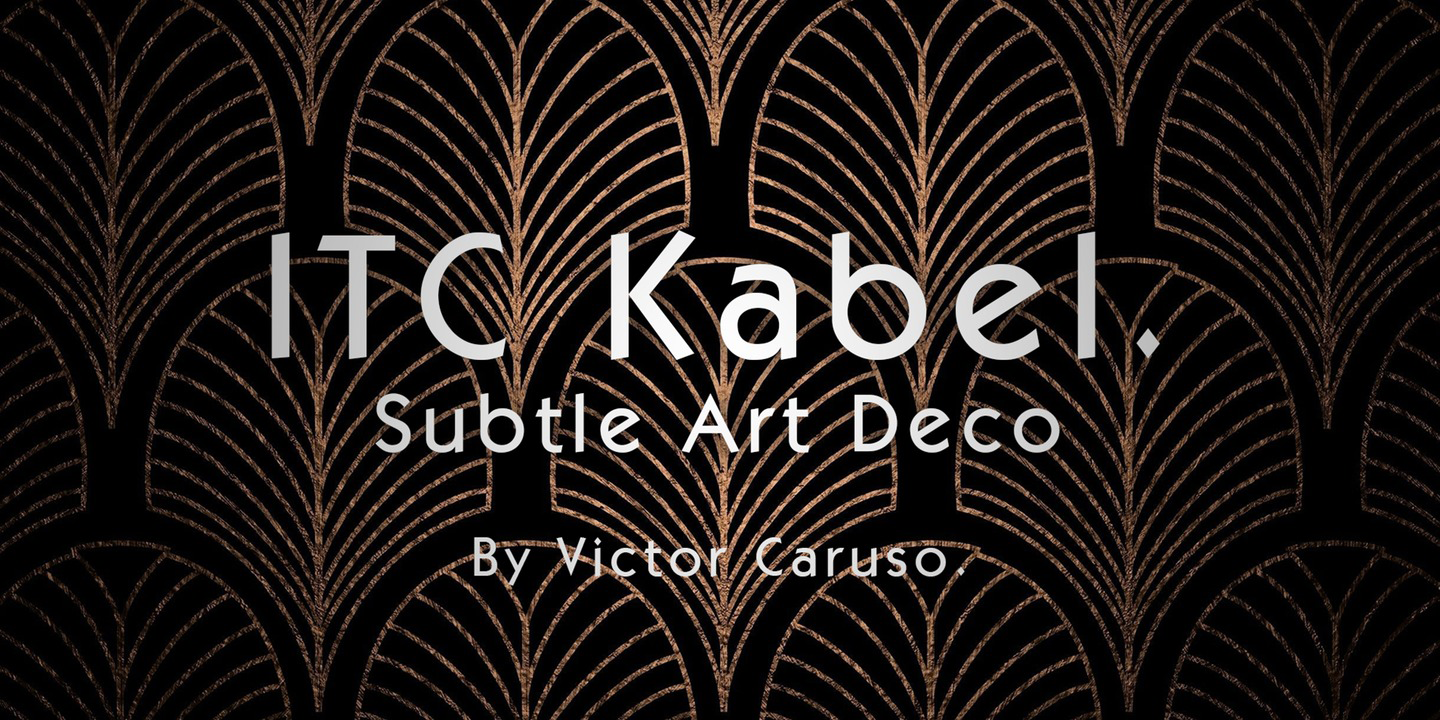
The ITC Kabel Font is an outstanding choice for projects that demand a modern, geometric, and distinctly charismatic sans-serif aesthetic with a touch of expressive flair. Originally designed by Rudolf Koch in 1927, and famously adapted by Victor Caruso for ITC, it's perfectly suited for bold headlines, branding (like Monopoly, L'eggs, and the Toronto Maple Leafs), packaging design, advertising campaigns, on-screen titling (famously in Yellow Submarine), and any design that benefits from a strong, clear, and uniquely styled typeface. Its confident and slightly quirky character makes it ideal for conveying a sense of modernity, playfulness, and timeless communication.
What makes ITC Kabel Font so exciting is its masterful blend of geometric construction with humanistic touches, setting it apart from its contemporaries like Futura. While strongly geometric with monotone strokes and open counters, it includes unusual design decisions such as a delicately low x-height (though increased in the ITC version), a quirky tilted 'e', and irregularly angled terminals. These subtle "imperfections" add a dynamic, animated feeling, suggesting stylish calligraphy rather than rigid geometry. The ITC adaptation, in particular, dramatically increased the x-height, enhancing legibility at smaller sizes, while maintaining its distinctive charm. This font doesn't just convey information; it expresses personality and a refined sense of style, making your content feel both professional and incredibly engaging.
The ITC Kabel Font family, as adapted by Victor Caruso, is typically comprehensive, offering a good range of weights to provide flexibility for designers. You can expect styles like ITC Kabel Std Book, ITC Kabel Std Medium, ITC Kabel Std Demi, ITC Kabel Std Bold, and ITC Kabel Std Ultra. These weights allow for diverse typographic hierarchies, ensuring visual harmony and precise control over the tone and emphasis of your text. Beyond the standard weights, the original Kabel also had companions like the inline "Prisma" and headline weight "Zeppelin," though these might not always be part of the standard ITC Kabel package. The font also includes various OpenType features for detailed typographic control.
Whether you're designing a classic board game, crafting a strong brand identity, or creating compelling advertising materials, the ITC Kabel Font Free Download offers an indispensable tool. Its commanding visual presence and undeniable character make it a premier choice for any project that needs to deliver a strong, unforgettable message with a burst of modern yet timeless personality.